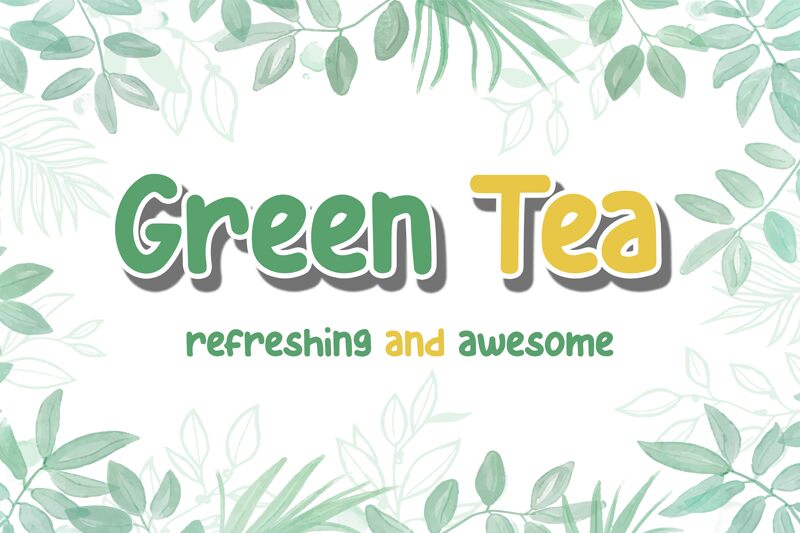
Green Tea
Green Tea is a whimsical handwritten font designed by Dian Mariesta. Its semi-bold weight gives it a playful and modern feel, perfect for any project that needs a touch of personality. Use Green Tea for your next branding project to create a unique and memorable logo, or add it to your social media graphics for a fun and approachable vibe. This font is also suitable for greeting cards, invitations, and other printed materials where you want to convey warmth and friendliness. Try Green Tea today and let your creativity flow!